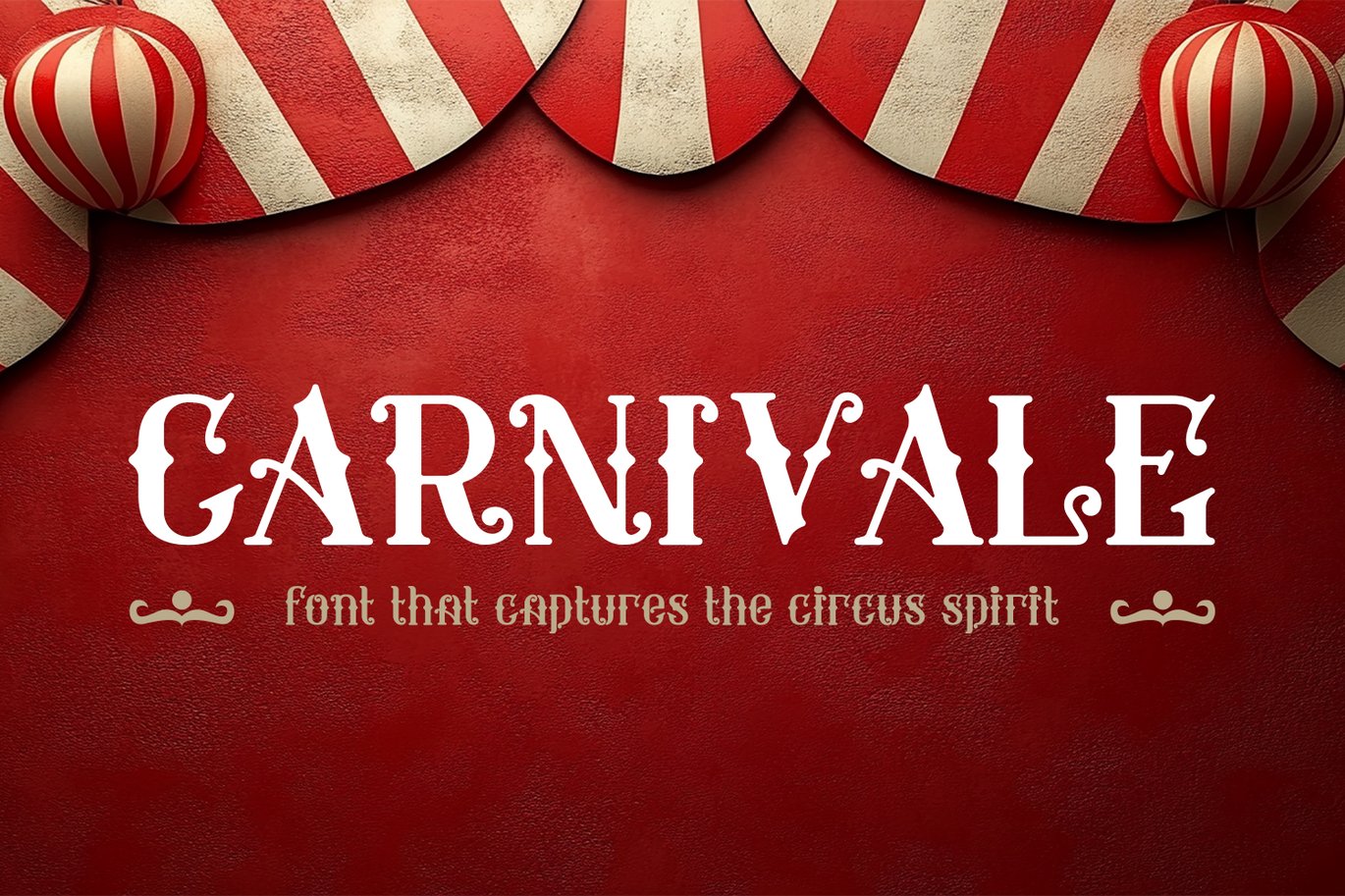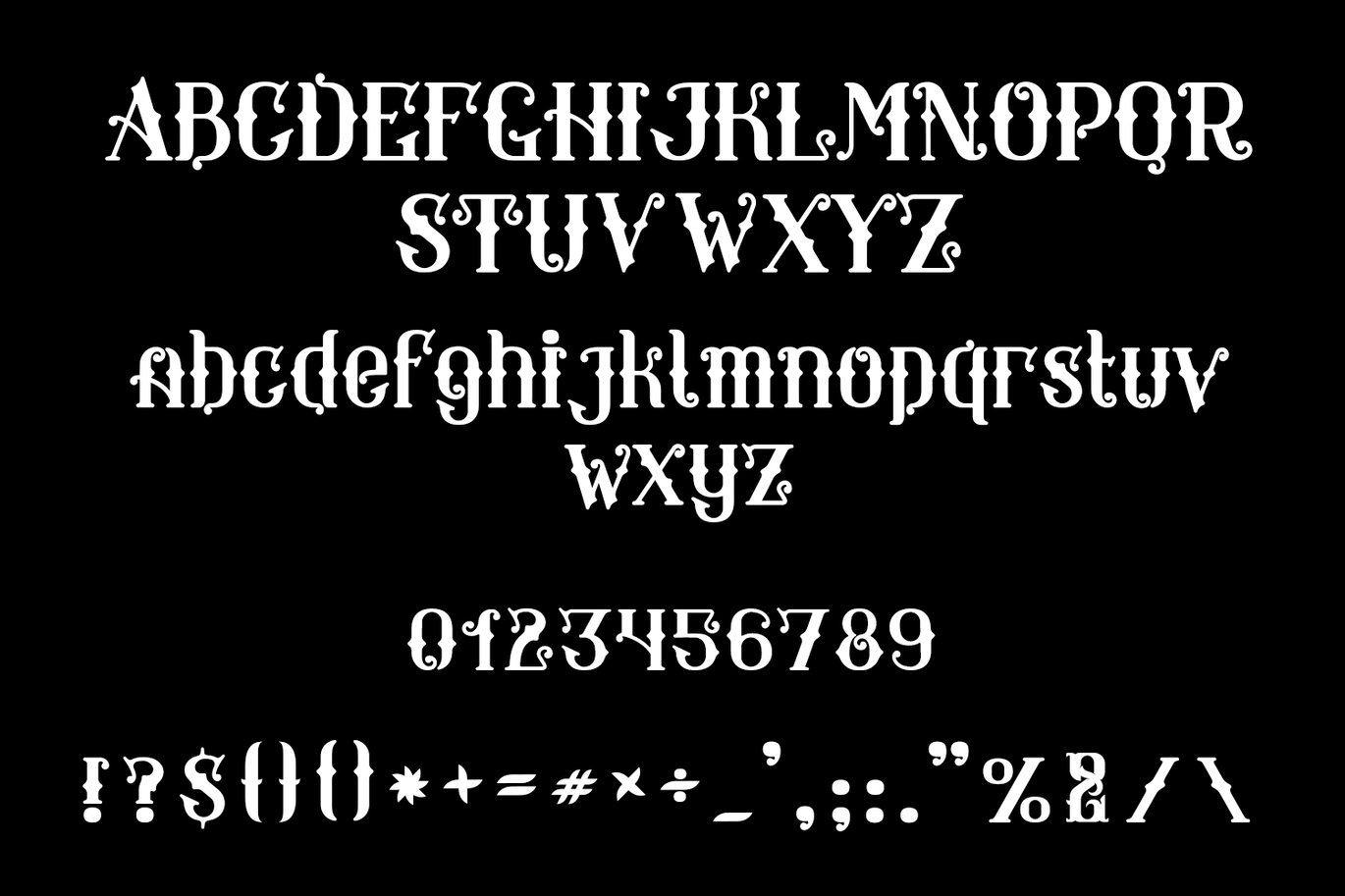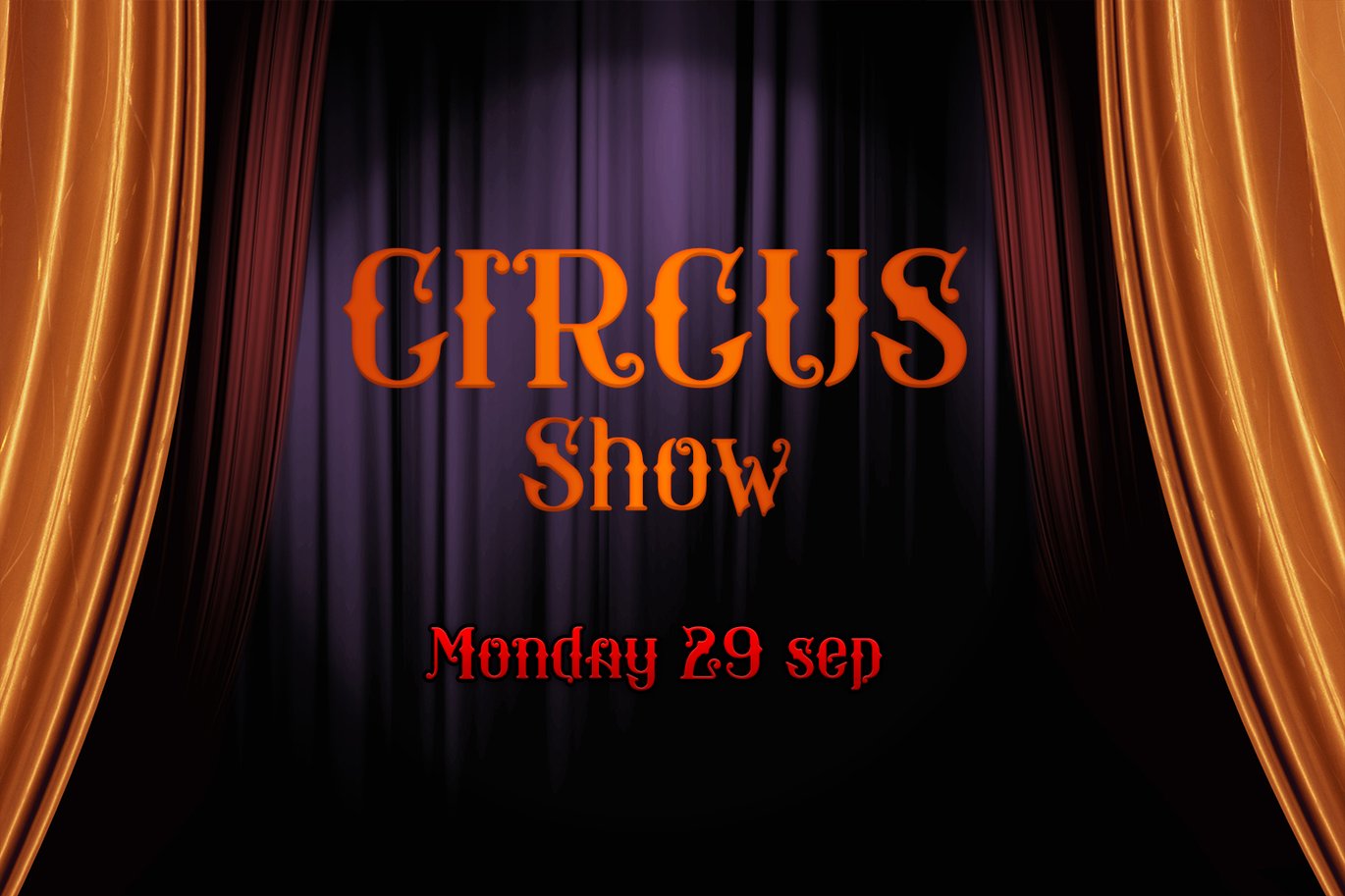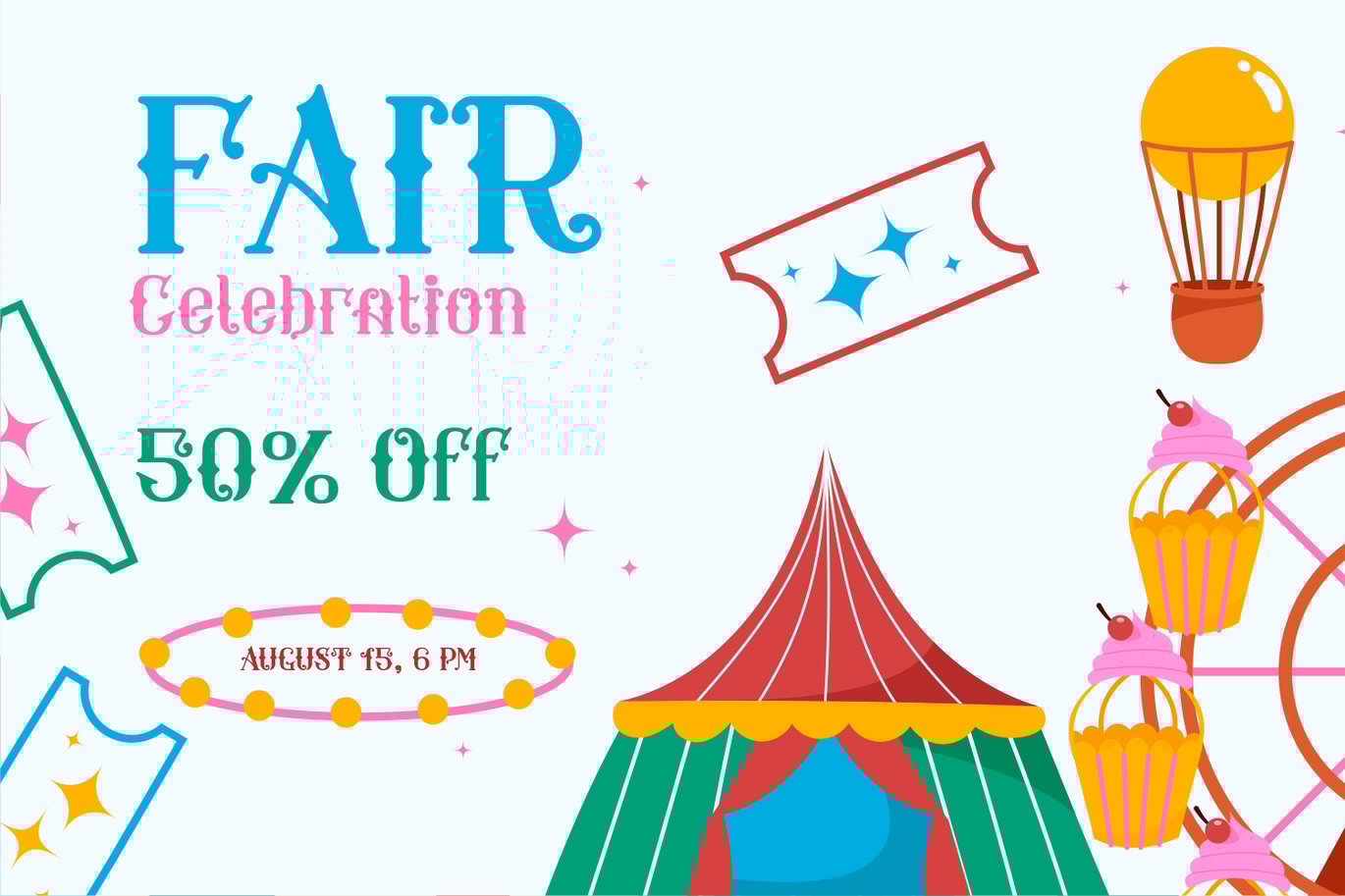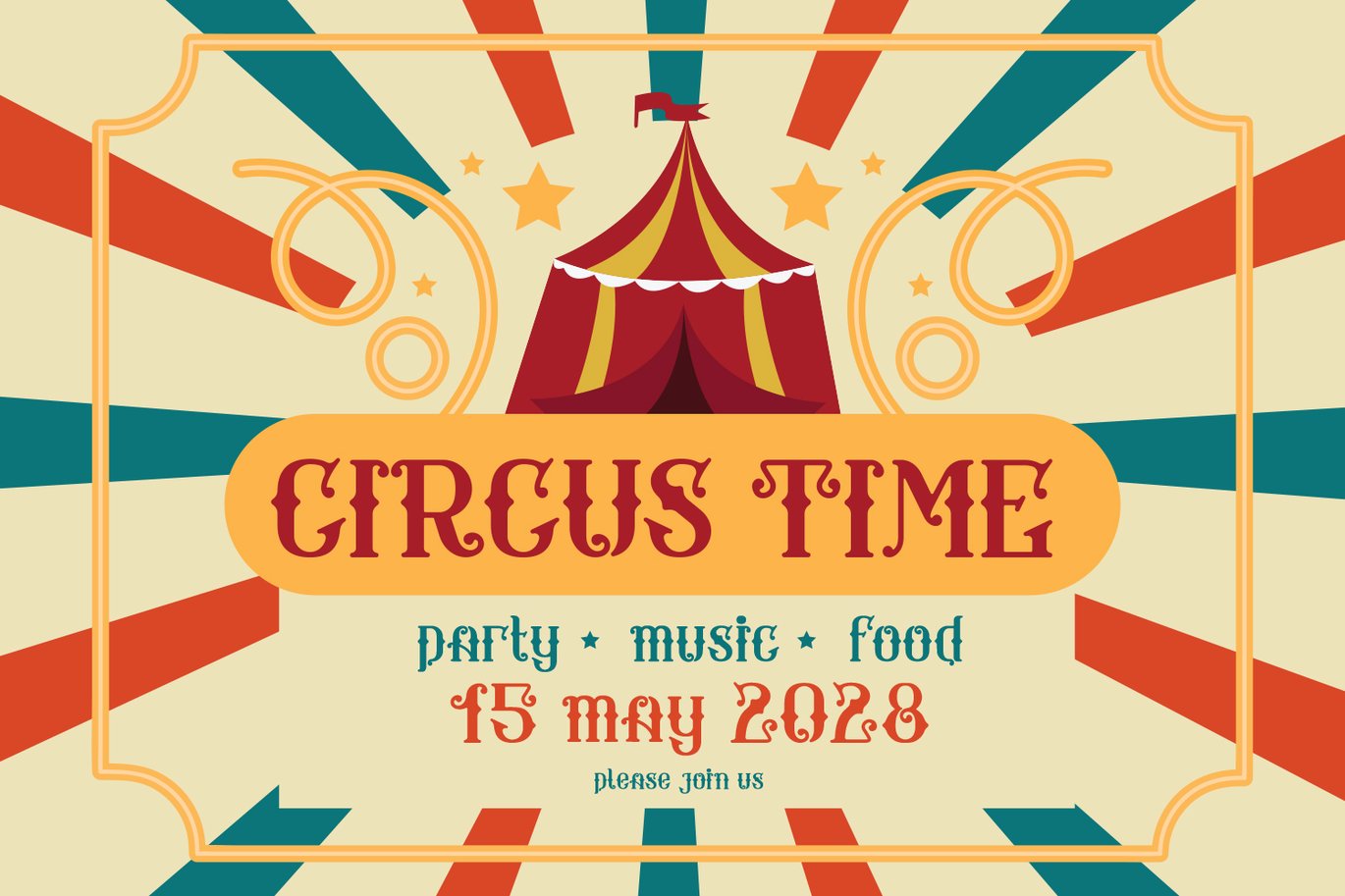
Carnivale Font
Carnivale is a bold and decorative vintage circus-themed font inspired by classic carnival posters and retro marquee lettering. Perfect for event flyers, branding, packaging, invitations, and signage, this font brings a playful yet elegant touch to any design. With its ornate details and nostalgic charm, Carnivale is ideal for capturing the magic of festivals, theater, and vintage aesthetics. Whether you’re designing for a circus event or looking to add a whimsical flair to your project, this font is your ultimate showstopper. Download now and let the spectacle begin!
- Unique letterforms